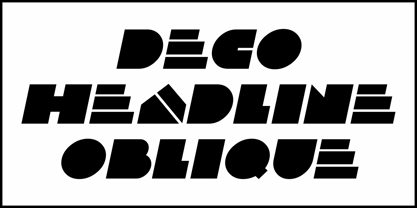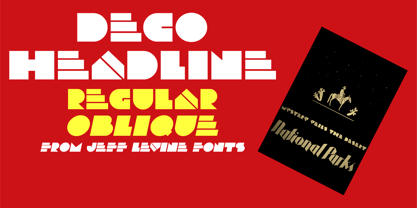
Deco Headline JNL
by Jeff Levine
The Deco Headline JNL Font Family was designed by Jeff Levine and published by Jeff Levine. Deco Headline JNL contains 2 styles and family package options. More about this family
A National Parks poster from 1934 entitled "Mystery Veils the Desert" was created and hand lettered by Dorothy Waugh and featured a highly unique and stylized Art Deco style of text.
The ultra bold sans serif design packs a punch when recreating period pieces of the era.
This is now available as Deco Headline JNL in both regular and oblique versions.
About Jeff Levine
Jeff Levine has been in love with lettering since the third grade, when a schoolmate brought a lettering stencil into class. He has worked in both the graphics and music industries, and began his work with digital type via his own site, which hosted over one hundred free dingbat fonts until its retirement in 2009. Although these fonts were experimental at best, Jeff received "thank you" letters from points all over the world for making his designs available. Encouraged by these responses, Jeff decided to set his sights on creating interesting and commercially viable type fonts.